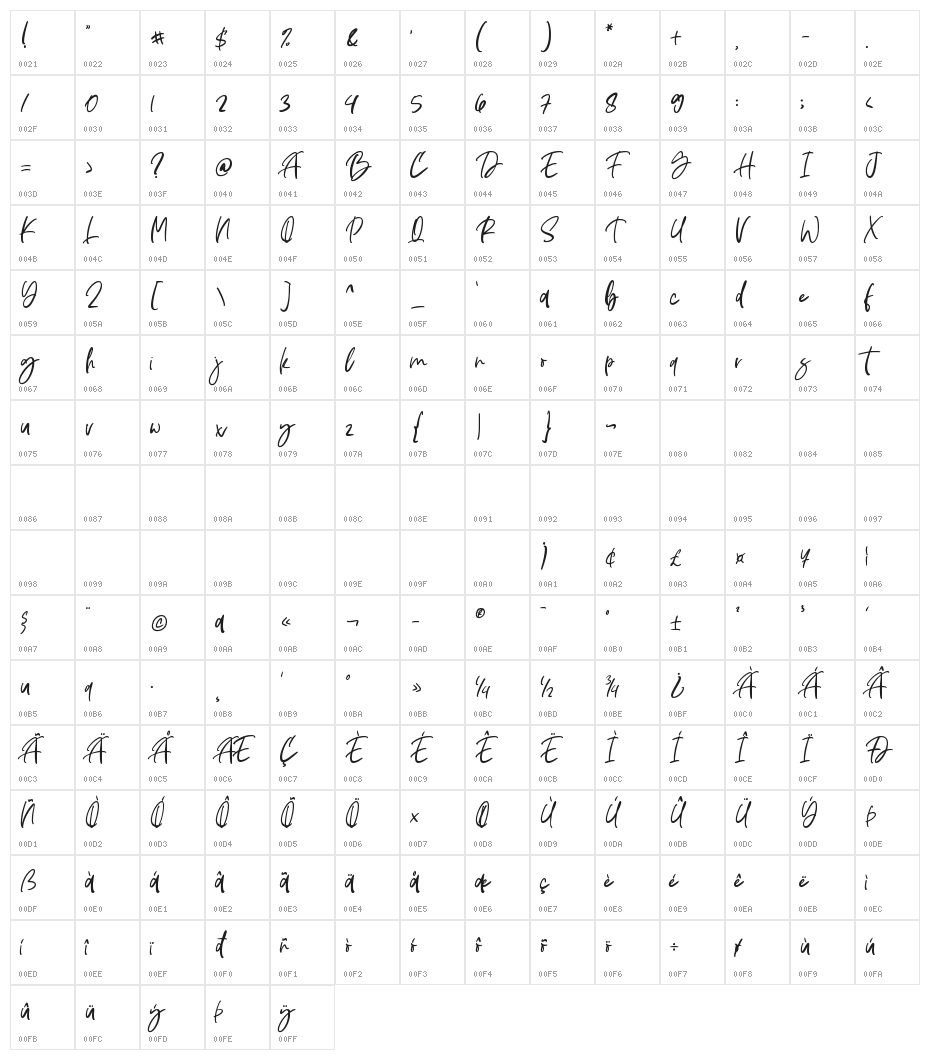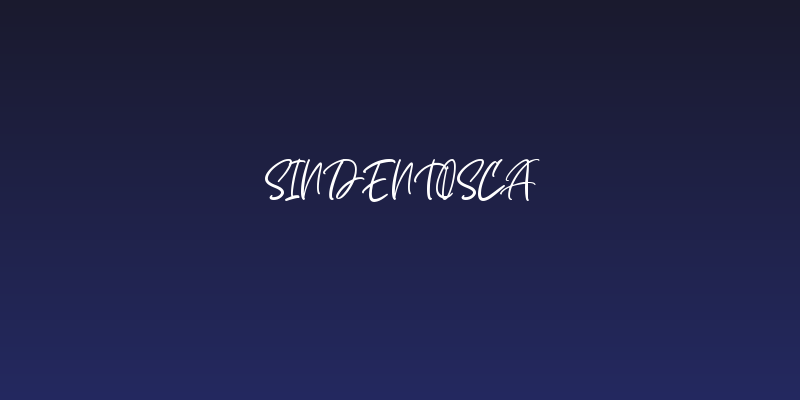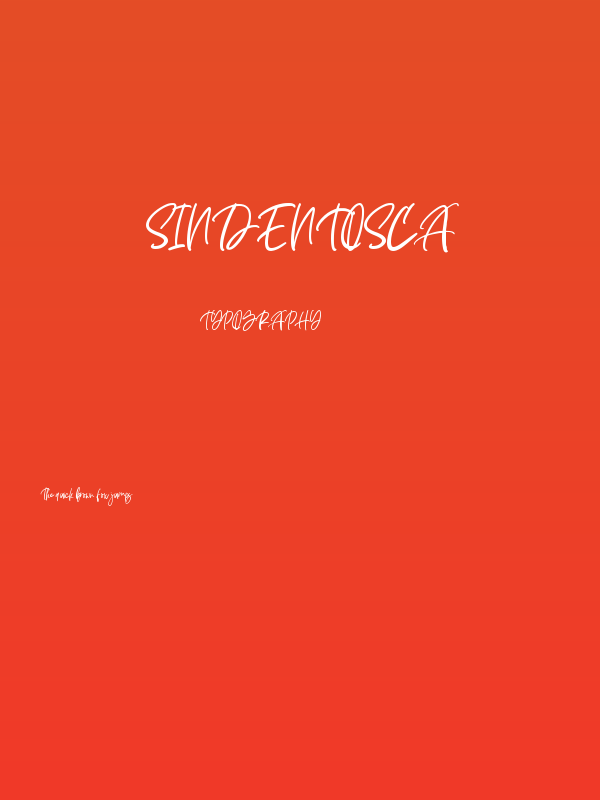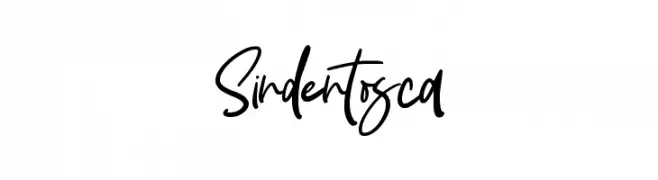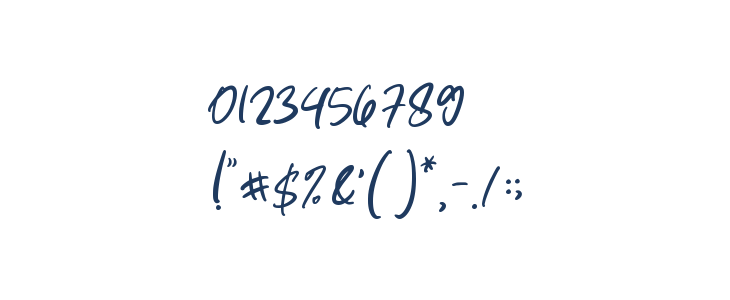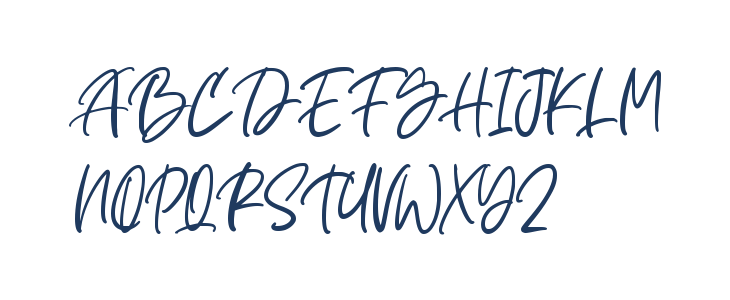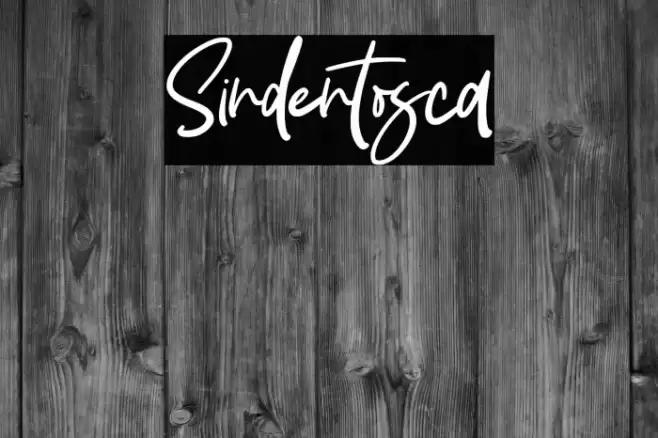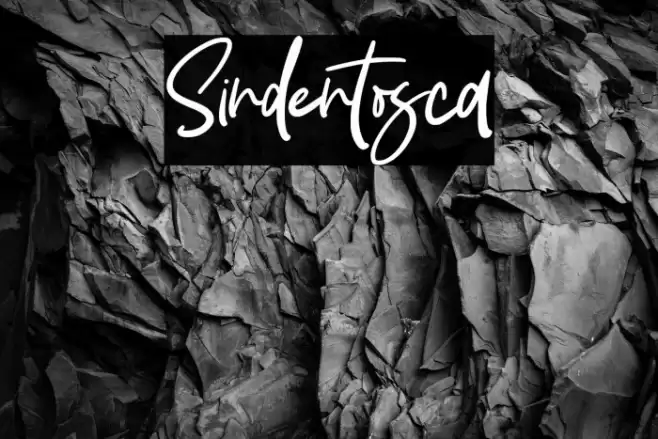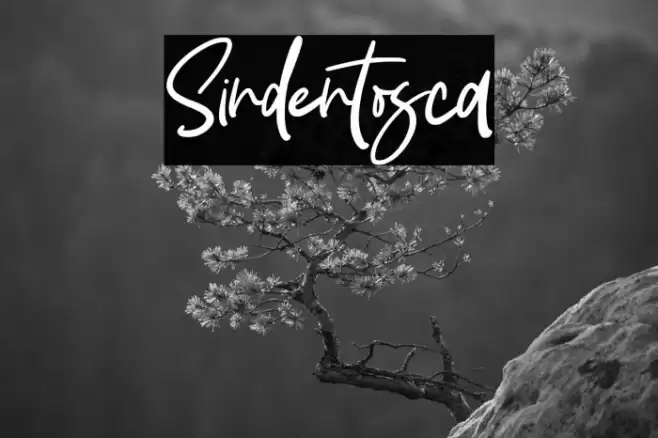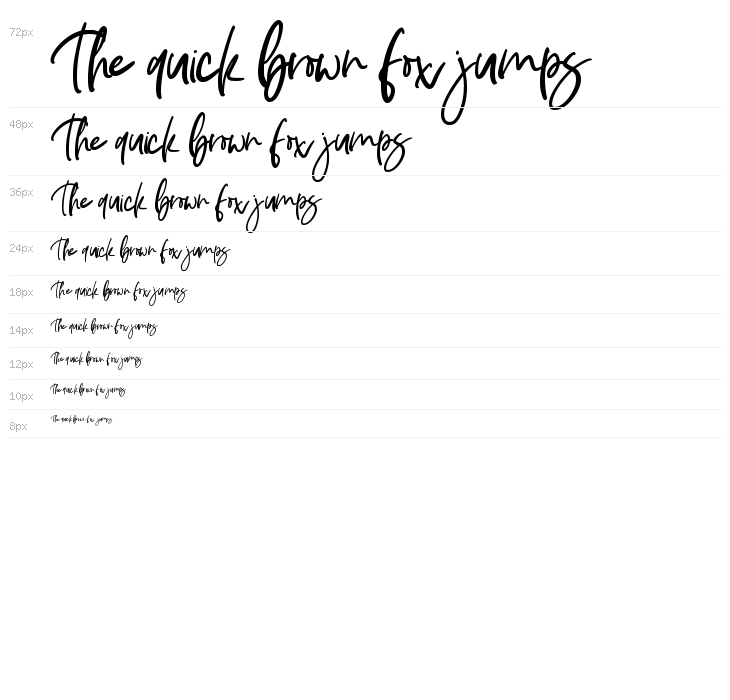
Sindentosca Font
Sindentosca Description
A handwritten, cursive script font with a casual and flowing style, featuring varying stroke widths and a lively, informal appearance.
| Overall Style | Casual, Handwritten, Lively |
| Use Case | Invitations, Greeting Cards, Personal Branding, Logos, Decorative Headings |